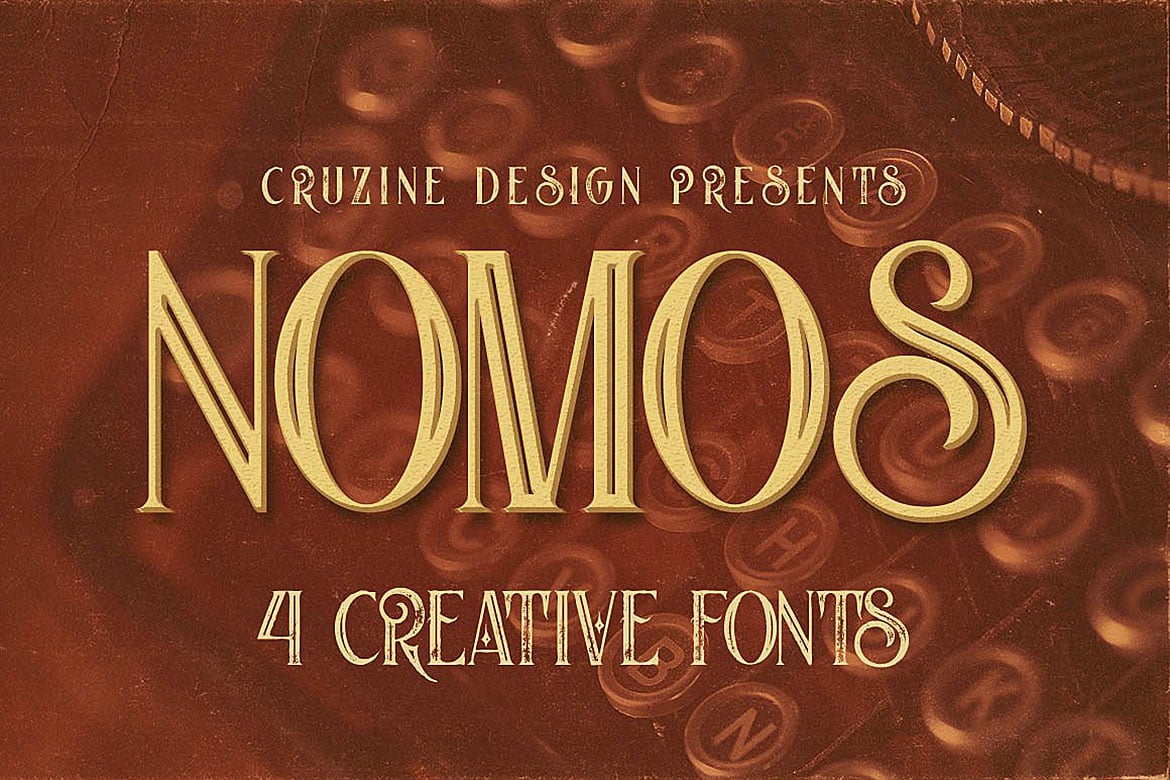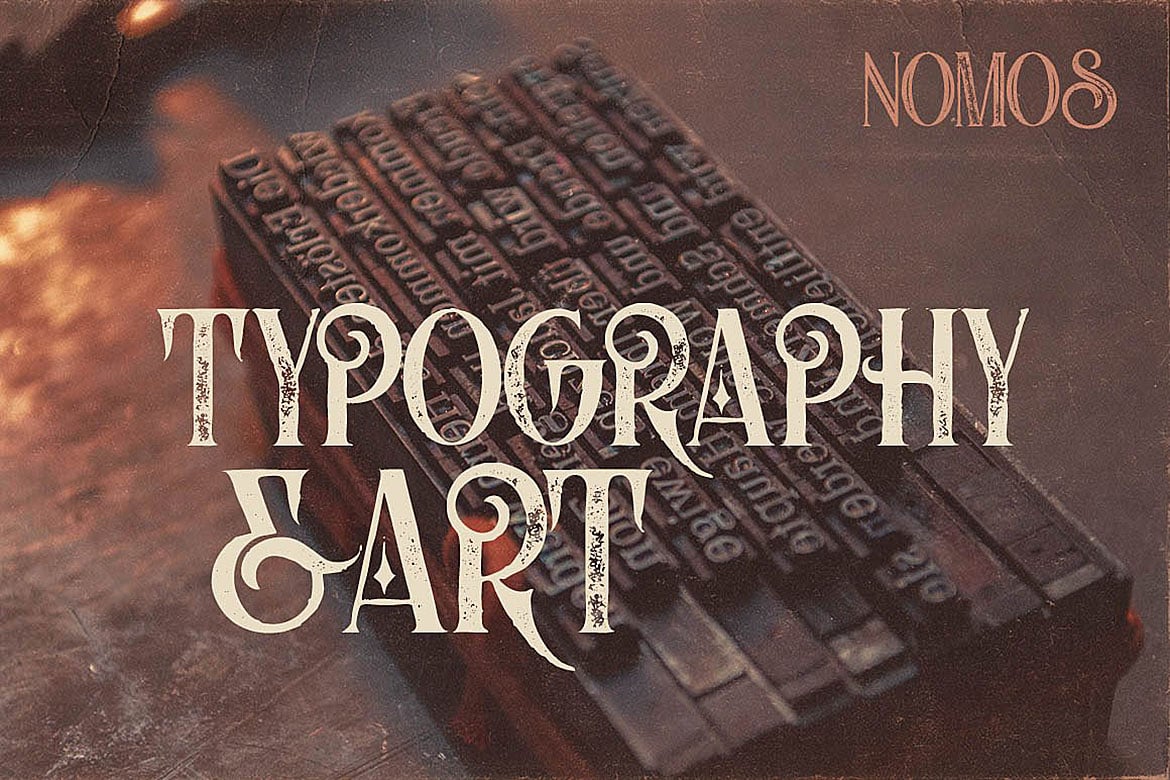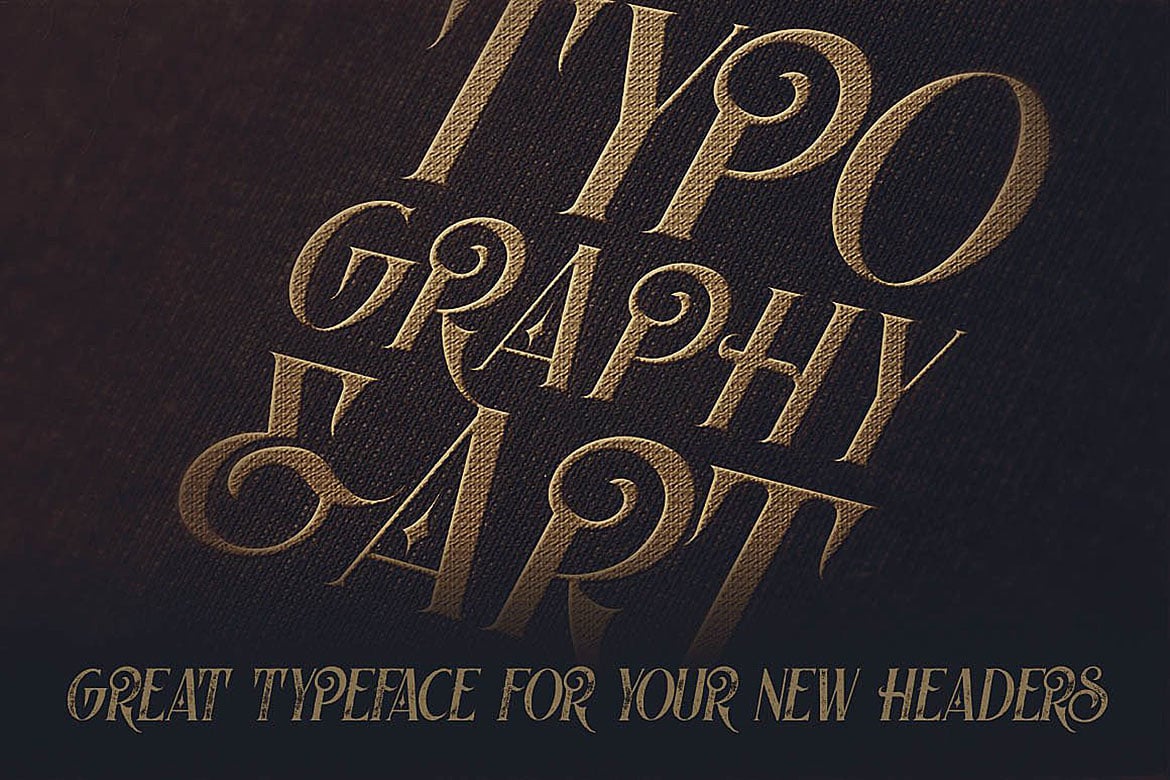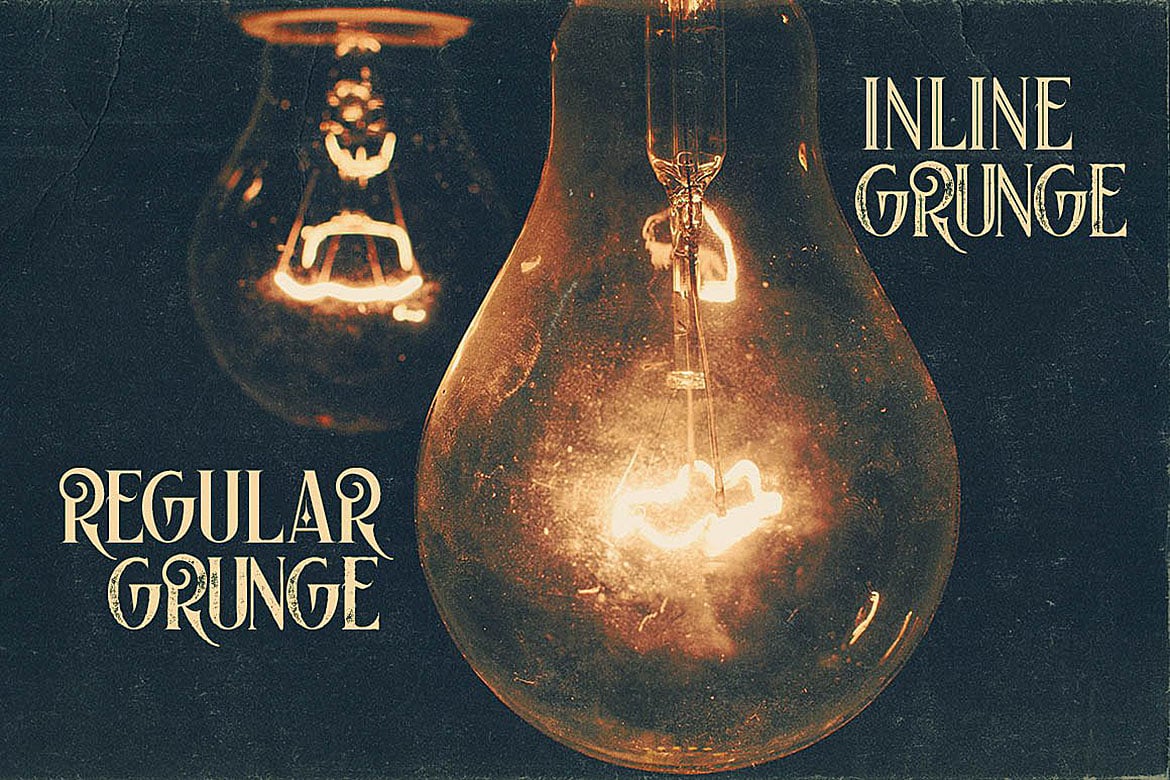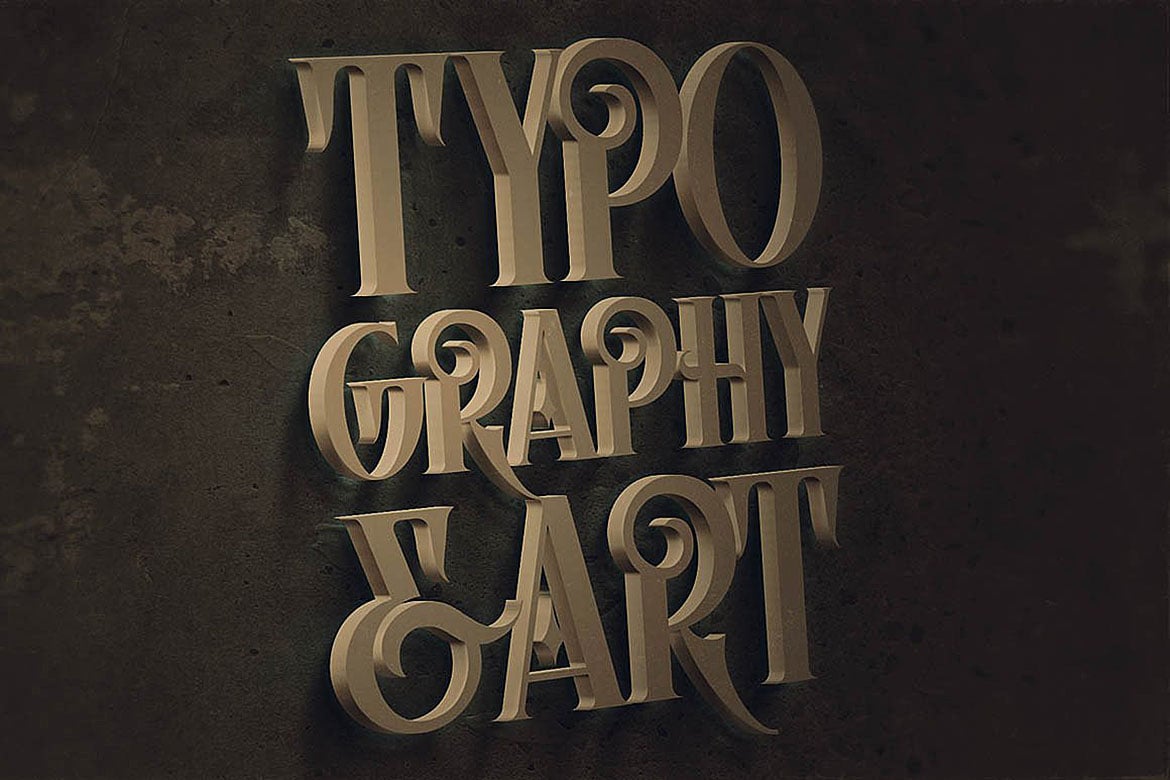
Nomos Typeface
Retro, vintage or steampunk style display font for your new projects. Great for grunge/retro/vintage projects!
4 font files (otf & ttf) – regular & grunge, inline & grunge